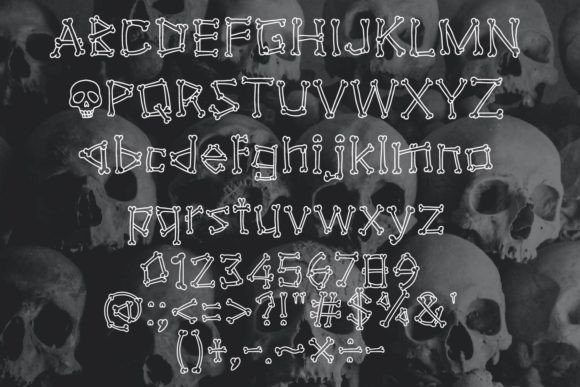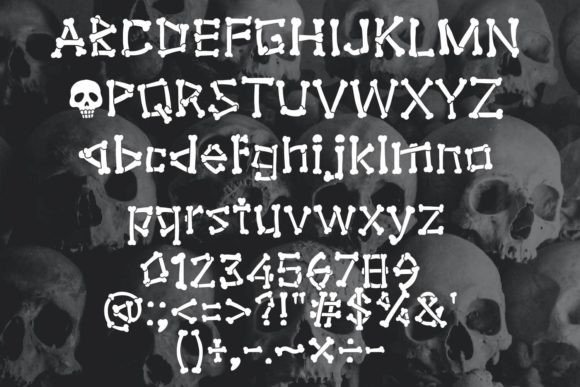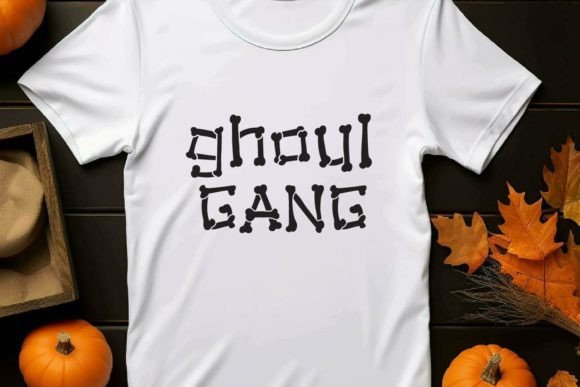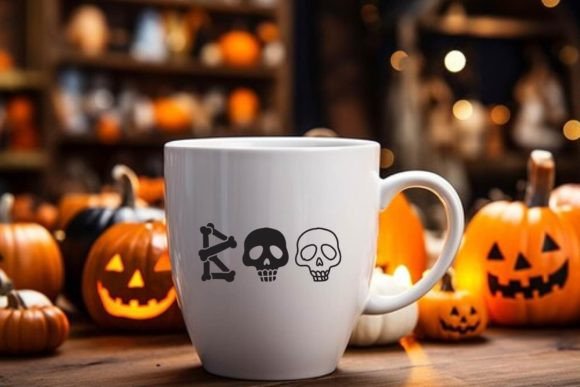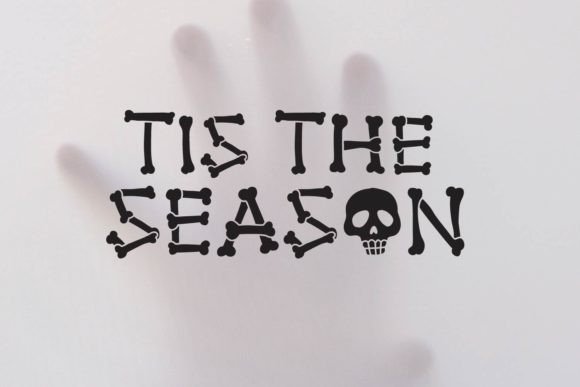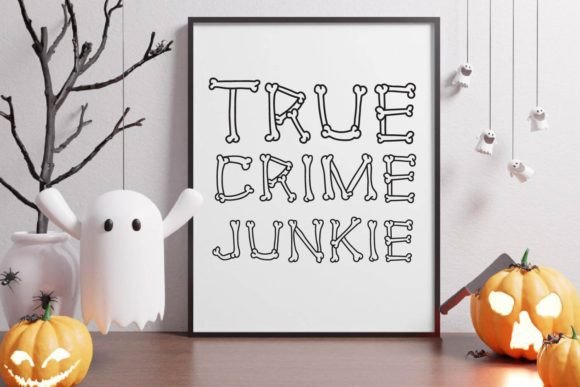
Bones Bony Font: The Ultimate Decorative Font for Spooky Halloween Crafts
Are you looking for a font that will add a touch of spooky fun to your Halloween crafts? Look no further than Bones Bony Font! This decorative font is perfect for designers and crafters who want to create eye-catching and eerie projects that will leave a lasting impression. In this article, we’ll dive into the world of Bones Bony Font and explore its features, uses, and benefits.
What is Bones Bony Font?
Bones Bony Font is a unique and creative font that is designed to bring a playful and spooky vibe to your projects. Its irregular and hand-drawn design makes it perfect for Halloween-themed crafts, such as party invitations, decorations, and DIY projects. The font’s distinctive style features bold lines, sharp edges, and a quirky charm that will add a touch of personality to your work.
Features of Bones Bony Font
Bones Bony Font comes with a range of features that make it an excellent choice for designers and crafters. Some of its key features include:
• Unique Design: Bones Bony Font boasts a one-of-a-kind design that is sure to grab attention. Its irregular shape and bold lines make it perfect for creating eye-catching headlines and titles.
• High-Quality: Bones Bony Font is a high-quality font that is designed to produce crisp and clear results, even at large sizes.
• Versatile: The font is versatile and can be used for a range of projects, from digital designs to print materials.
Uses of Bones Bony Font
Bones Bony Font is a versatile font that can be used for a range of projects, including:
• Halloween Invitations: Create spooky and eye-catching invitations for Halloween parties and events.
• DIY Projects: Add a touch of personality to your DIY projects, such as Halloween decorations, signs, and banners.
• Digital Designs: Use Bones Bony Font to create spooky and engaging digital designs, such as social media graphics and blog posts.
• Crafting: The font is perfect for crafters who want to add a touch of personality to their projects, such as scrapbooking and card making.
Benefits of Using Bones Bony Font
Using Bones Bony Font offers a range of benefits, including:
• Unique Look: The font’s unique design will give your projects a distinctive look that will set them apart from others.
Tips for Using Bones Bony Font
Here are some tips for using Bones Bony Font:
• Experiment with Sizes: Experiment with different font sizes to create a unique and eye-catching look.
• Combine with Other Fonts: Combine Bones Bony Font with other fonts to create a unique and interesting look.
• Use in Combination with Images: Use the font in combination with images to create a visually appealing design.
• Have Fun: Most importantly, have fun and be creative with Bones Bony Font!
Font Name Bones Bony Font
Author Rashdrawn
Bones Bony Font is a decorative font that is perfect for designers and crafters who want to add a touch of spooky fun to their Halloween crafts. Its unique design, ease of use, and versatility make it an excellent choice for a range of projects. Whether you’re creating Halloween invitations, DIY projects, or digital designs, Bones Bony Font is sure to bring some fun and personality to your work. So why not give it a try and see the amazing results for yourself?